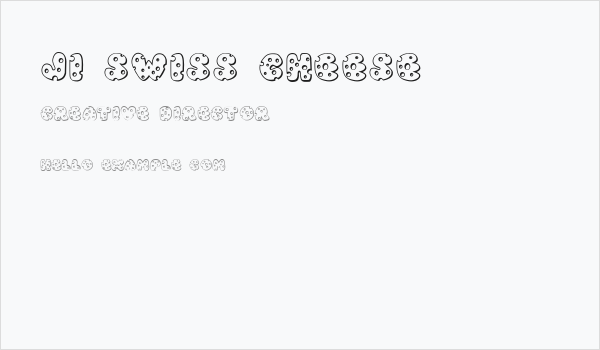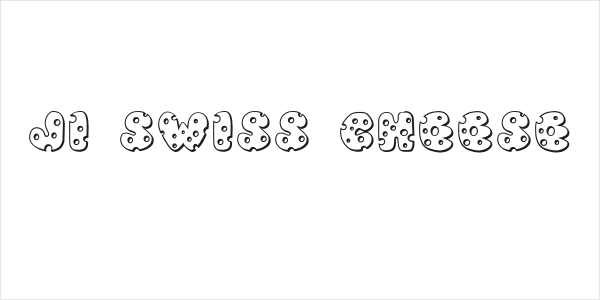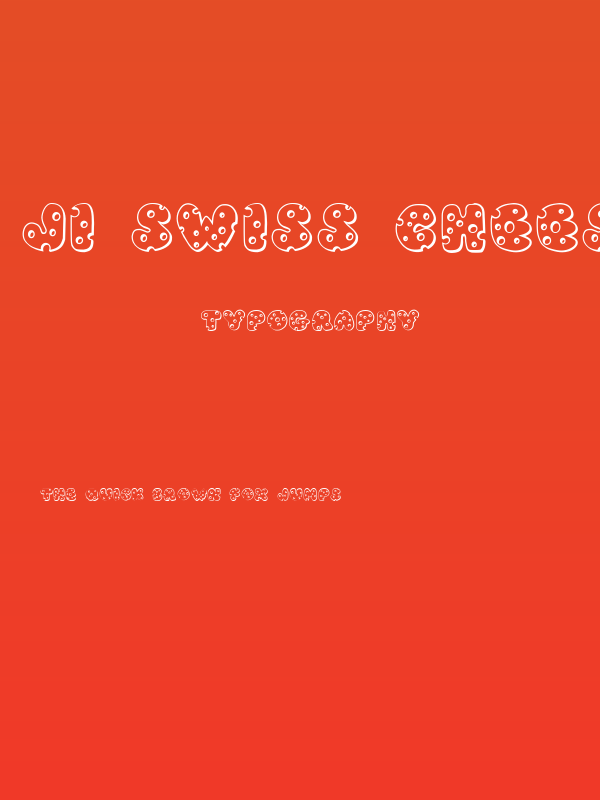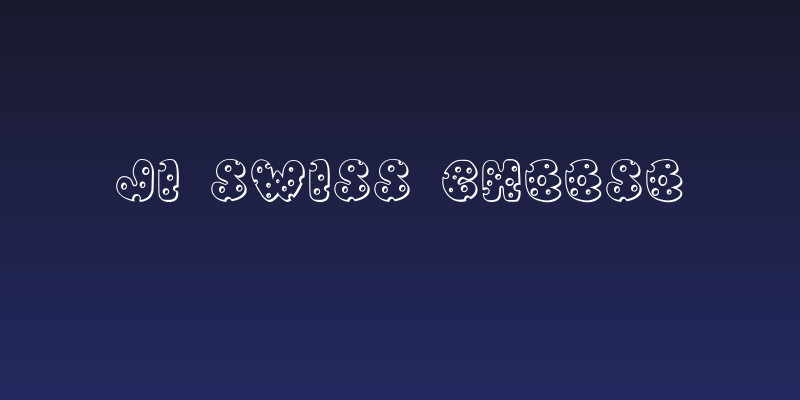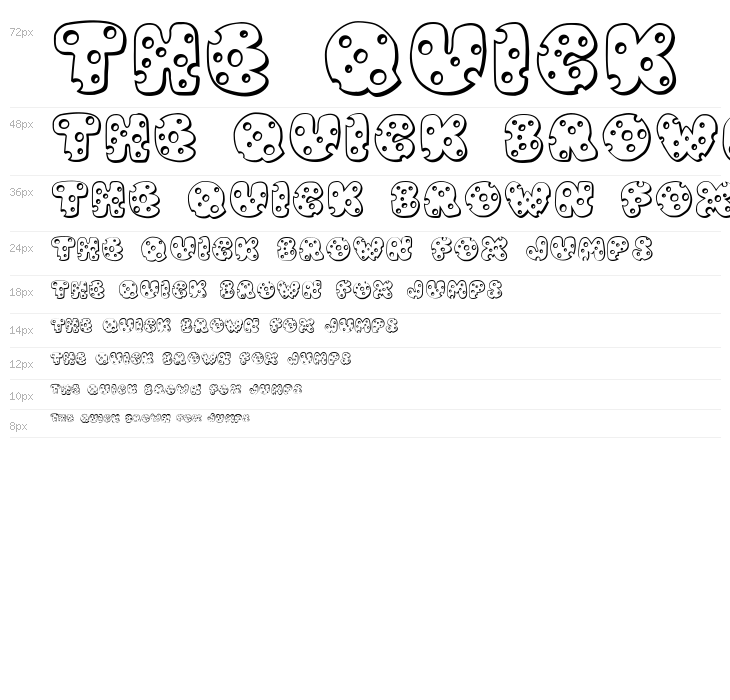
JI Swiss Cheese Font
JI Swiss Cheese Description
This playful and whimsical font features bold, rounded letters with a unique design that mimics the appearance of Swiss cheese, complete with holes and irregular shapes. The characters are outlined, giving them a cartoonish and fun look, making them perfect for creative and lighthearted projects. The font maintains a consistent thickness throughout, with medium contrast in stroke thickness. Its distinctive style is sure to capture attention and add a touch of humor and charm to any design.
| Overall Style | Whimsical |
| Proposed Projects | Ideal for children's books, playful branding, food packaging, and party invitations. |